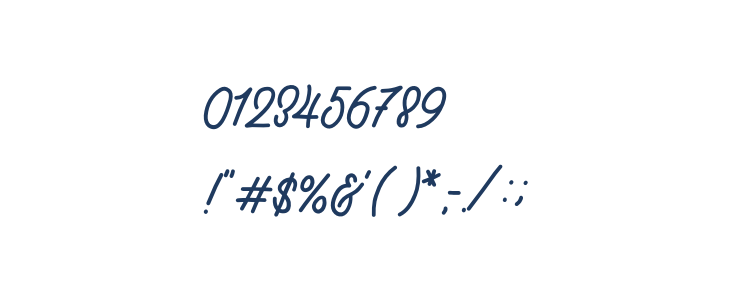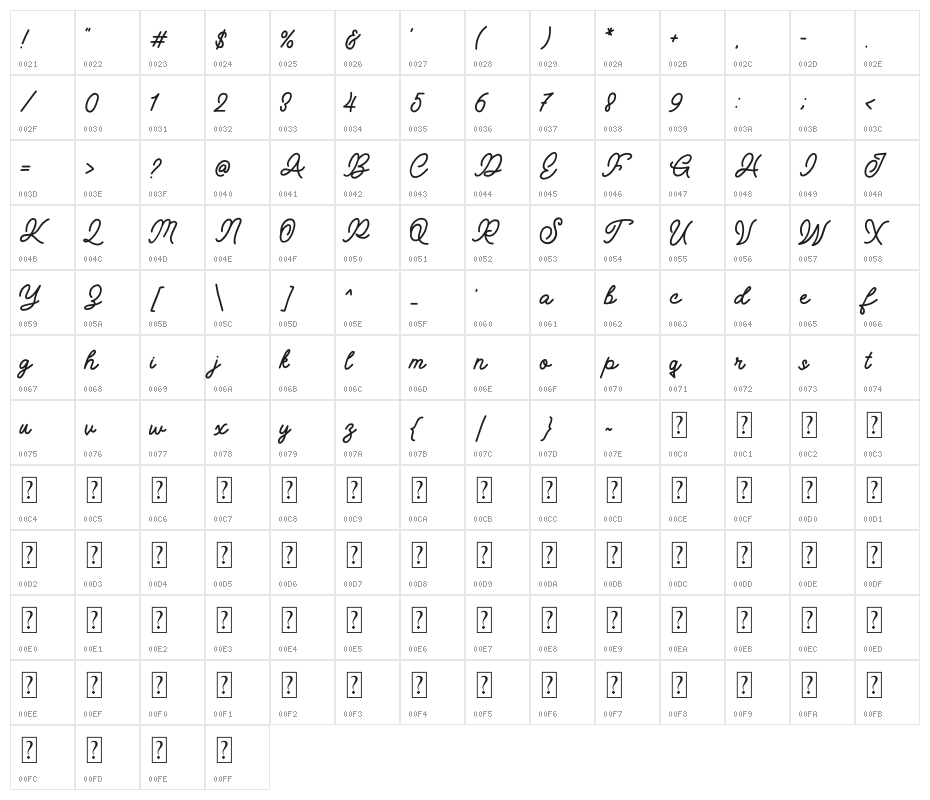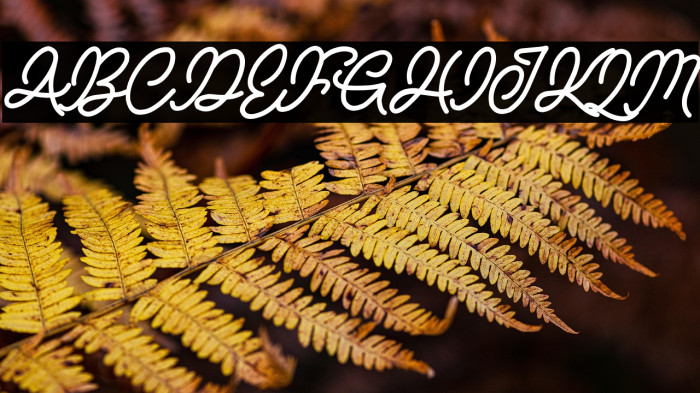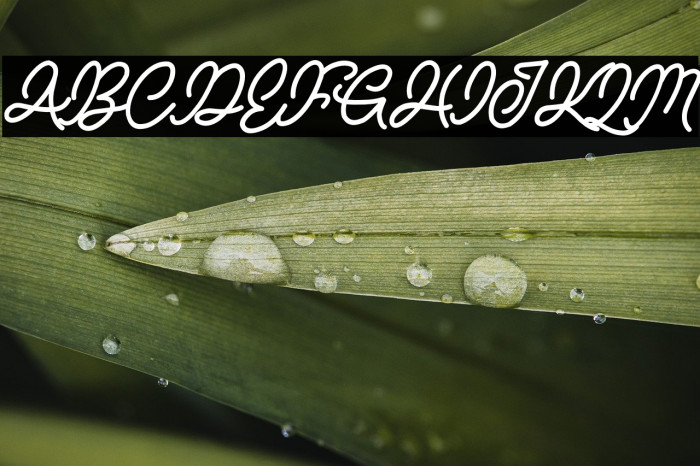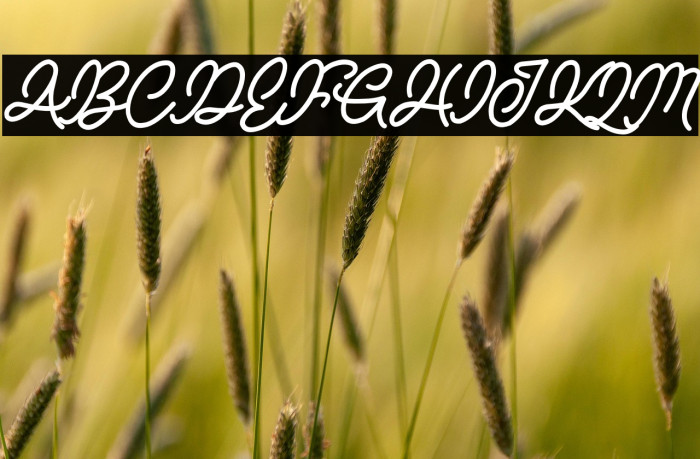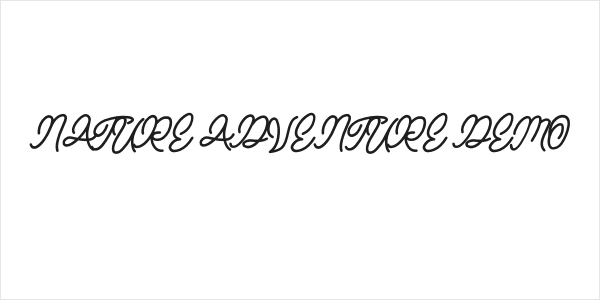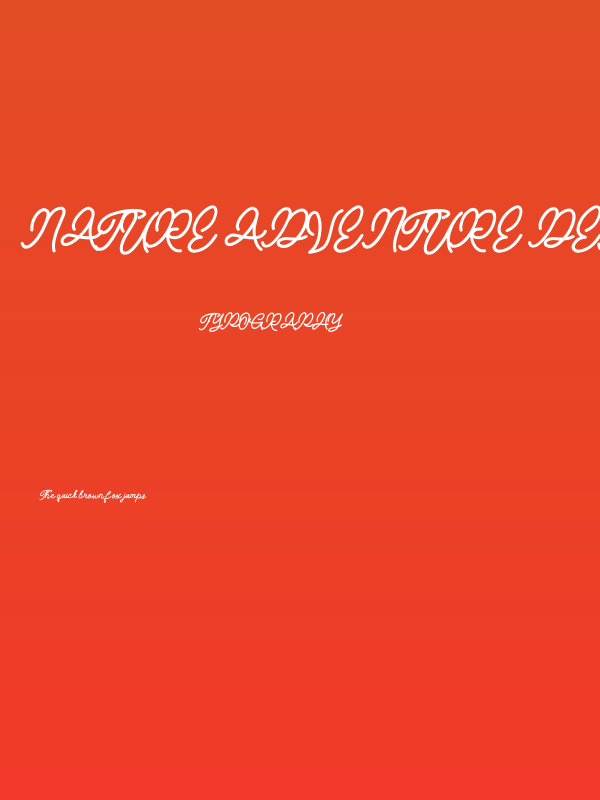
NATURE ADVENTURE DEMO Font
NATURE ADVENTURE DEMO Description
This font features a flowing, cursive style that exudes elegance and sophistication. The letters are interconnected, creating a seamless and fluid appearance. The uppercase characters are bold and prominent, with graceful loops and curves that enhance their decorative appeal. The lowercase letters maintain the same fluidity, with a slightly more subdued presence. Numbers and special characters are crafted with the same attention to detail, ensuring consistency throughout the font. The overall design is reminiscent of traditional calligraphy, making it suitable for projects that require a touch of classic charm.
| Proposed Projects | Ideal for wedding invitations, greeting cards, elegant branding, and decorative headings. |